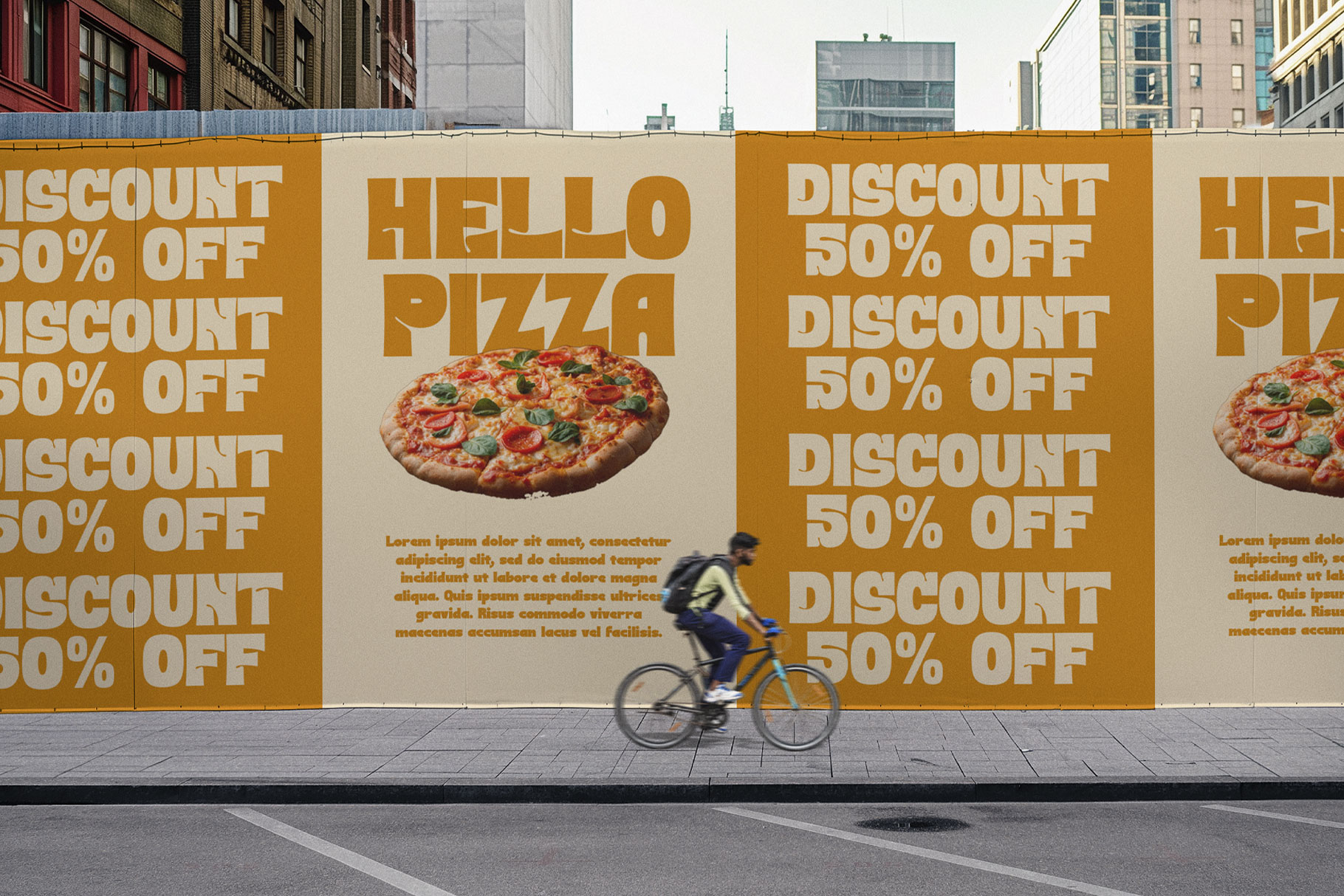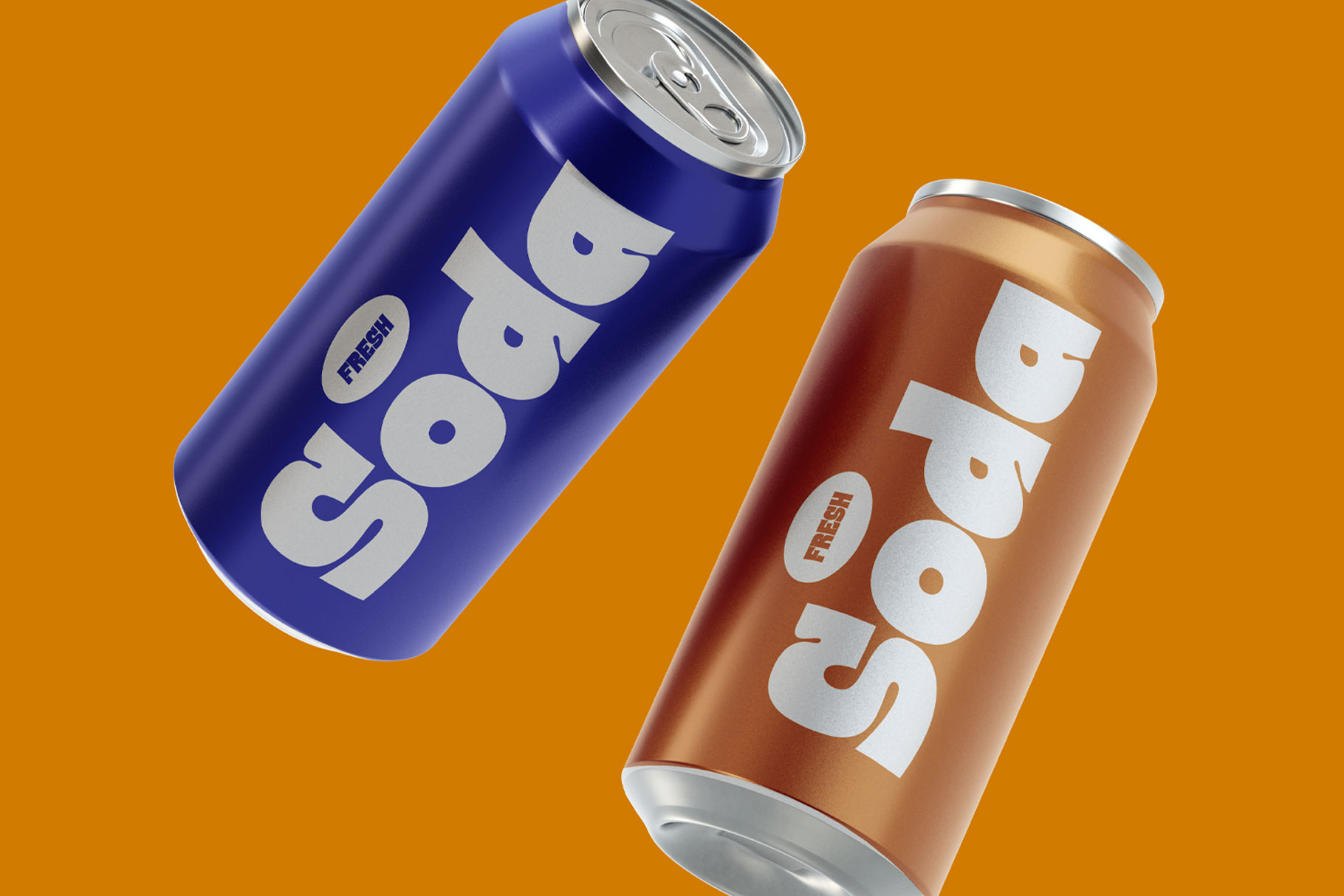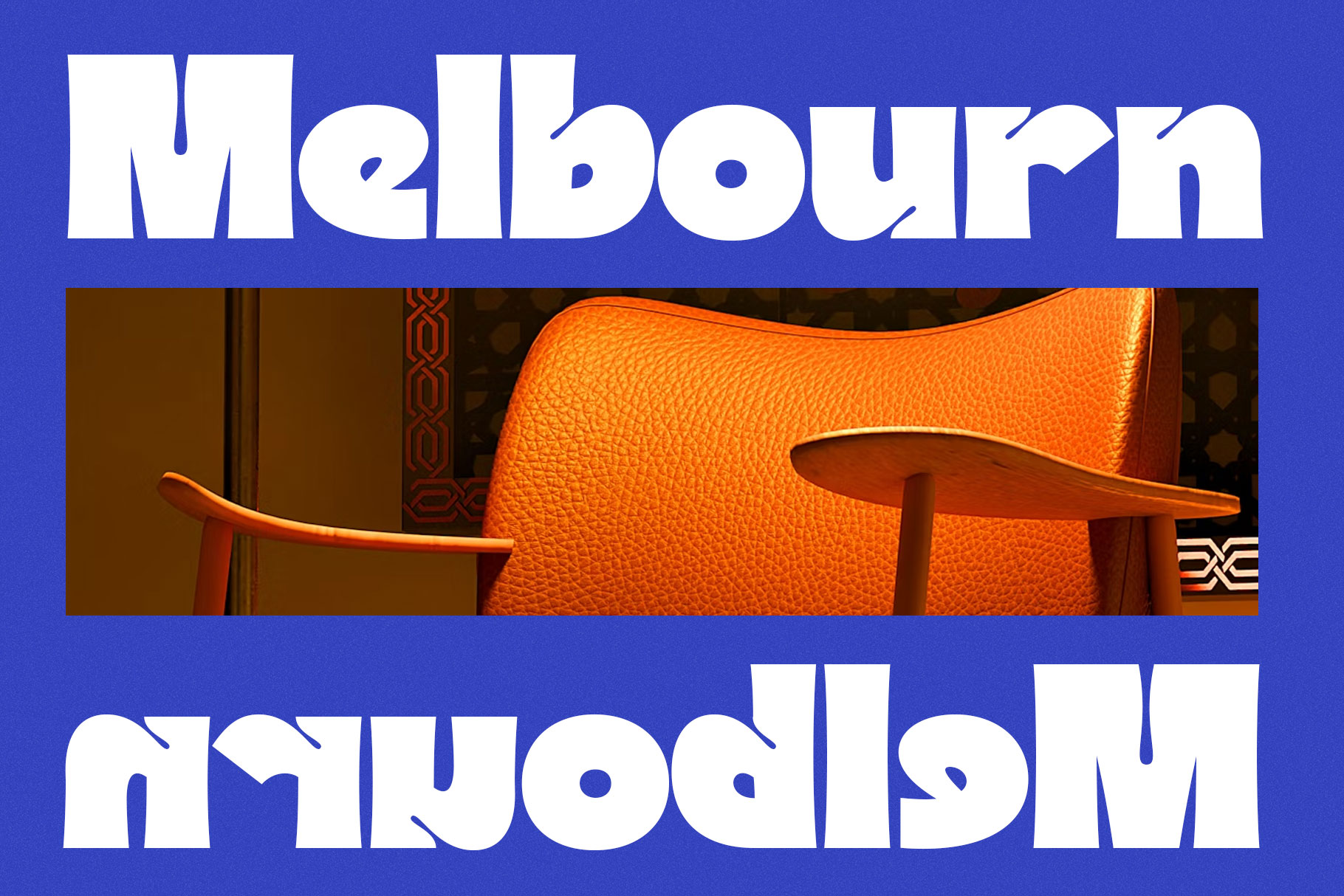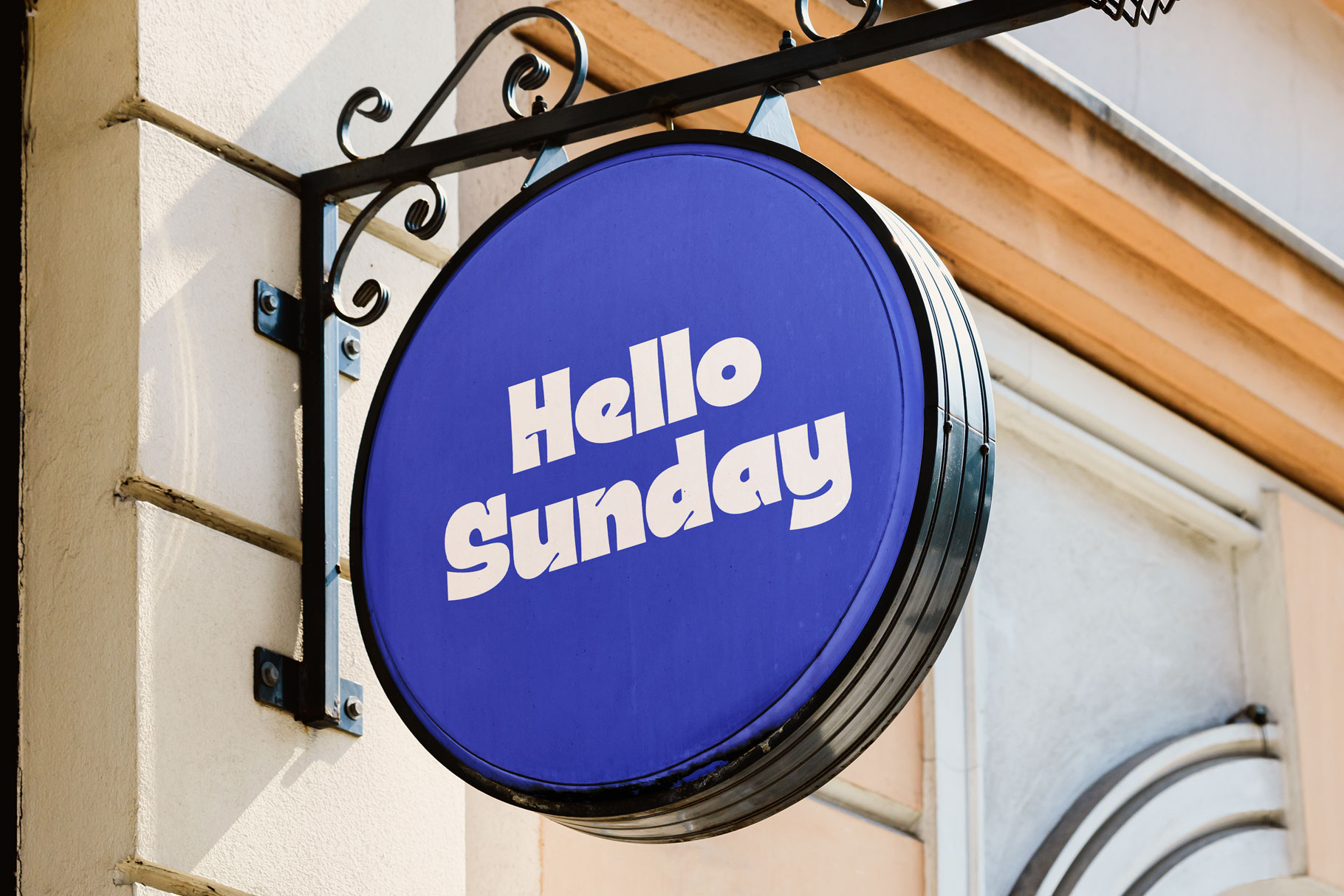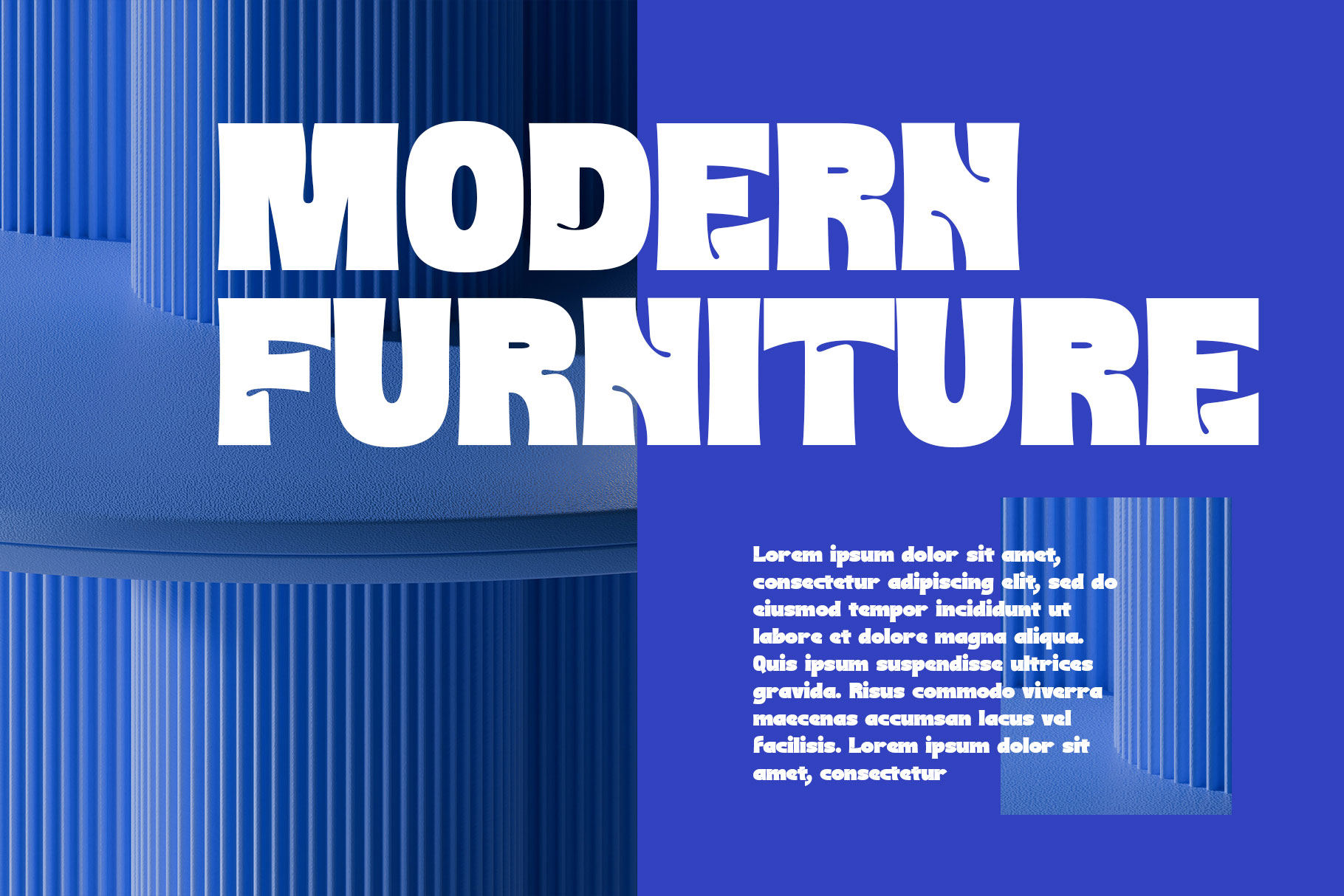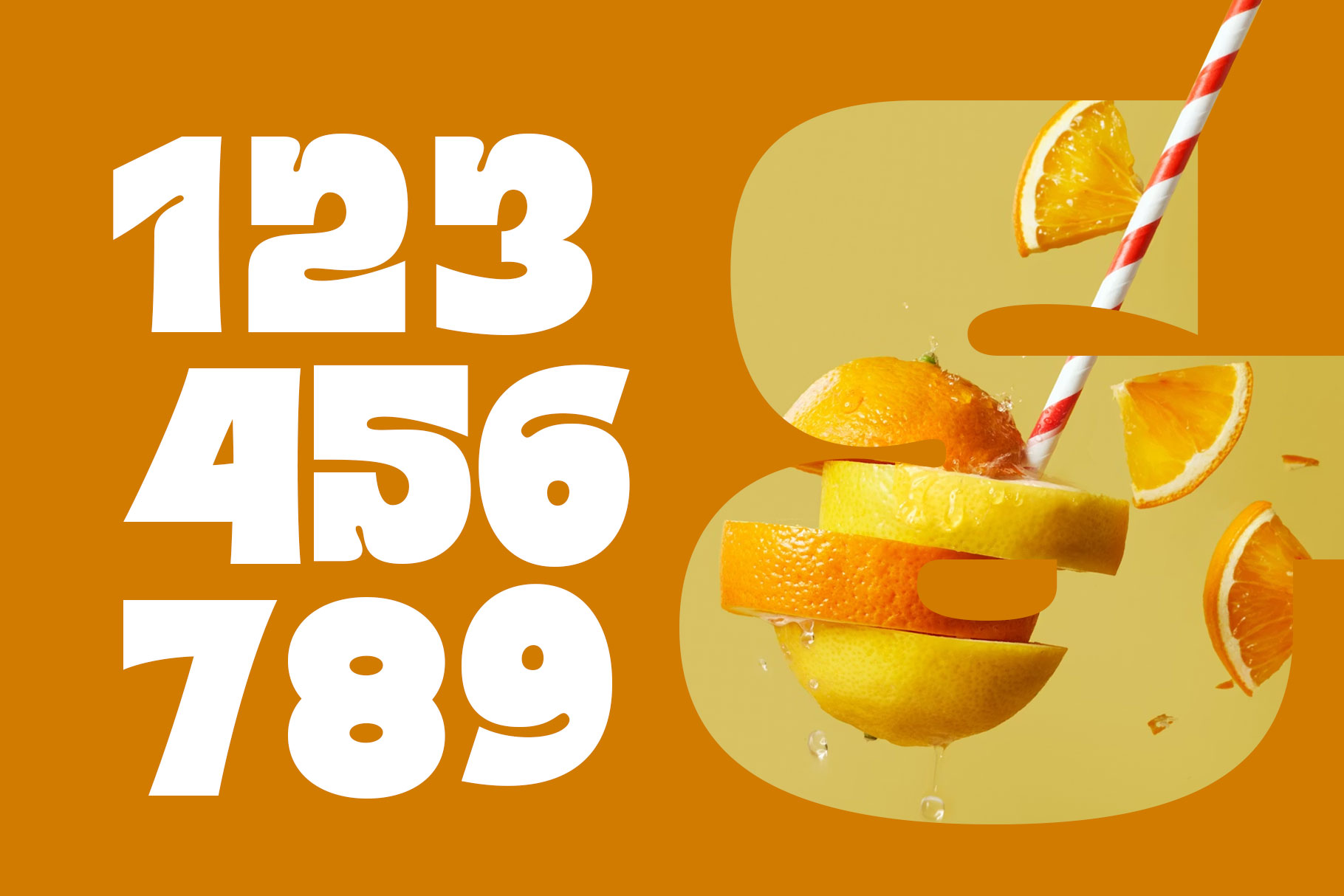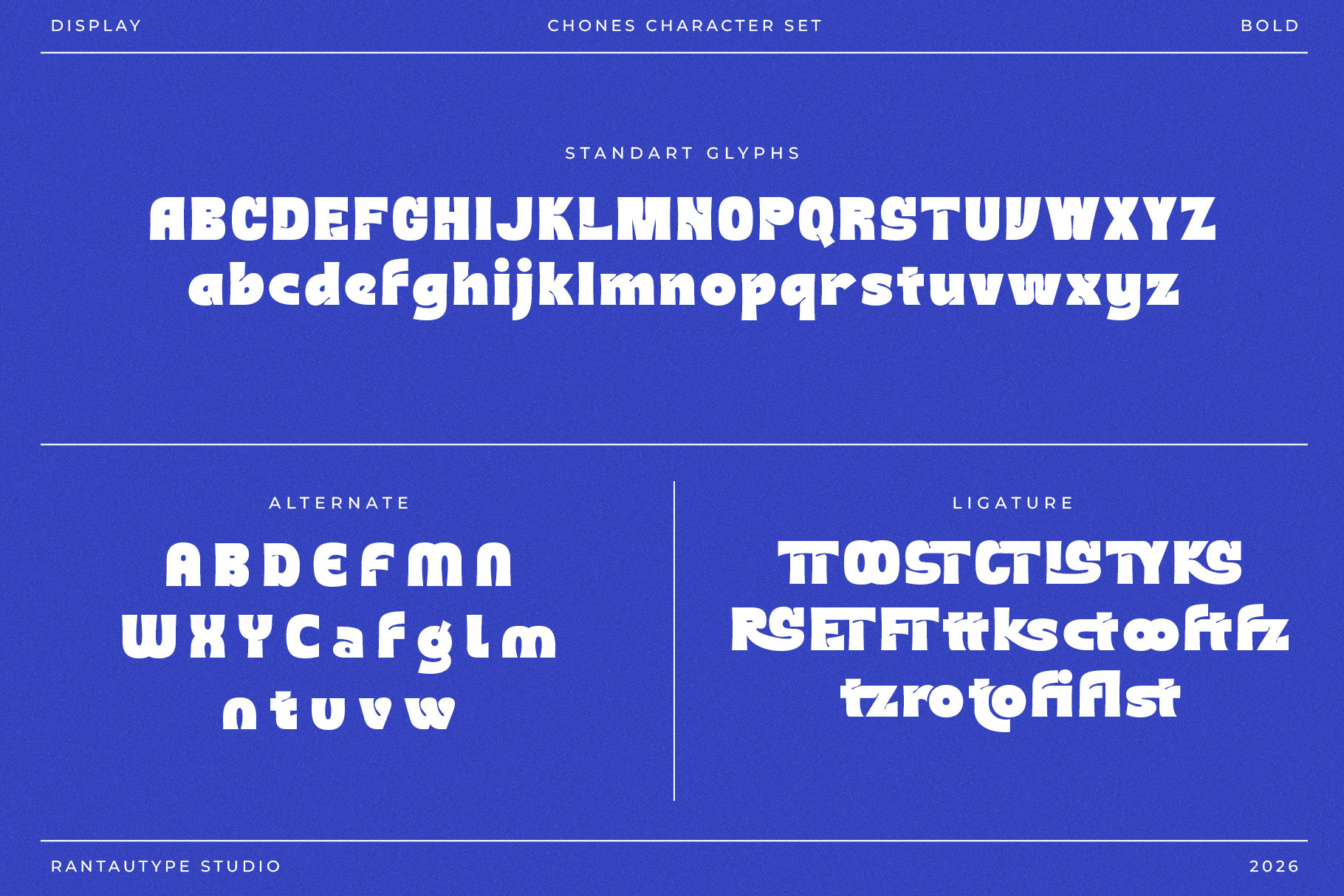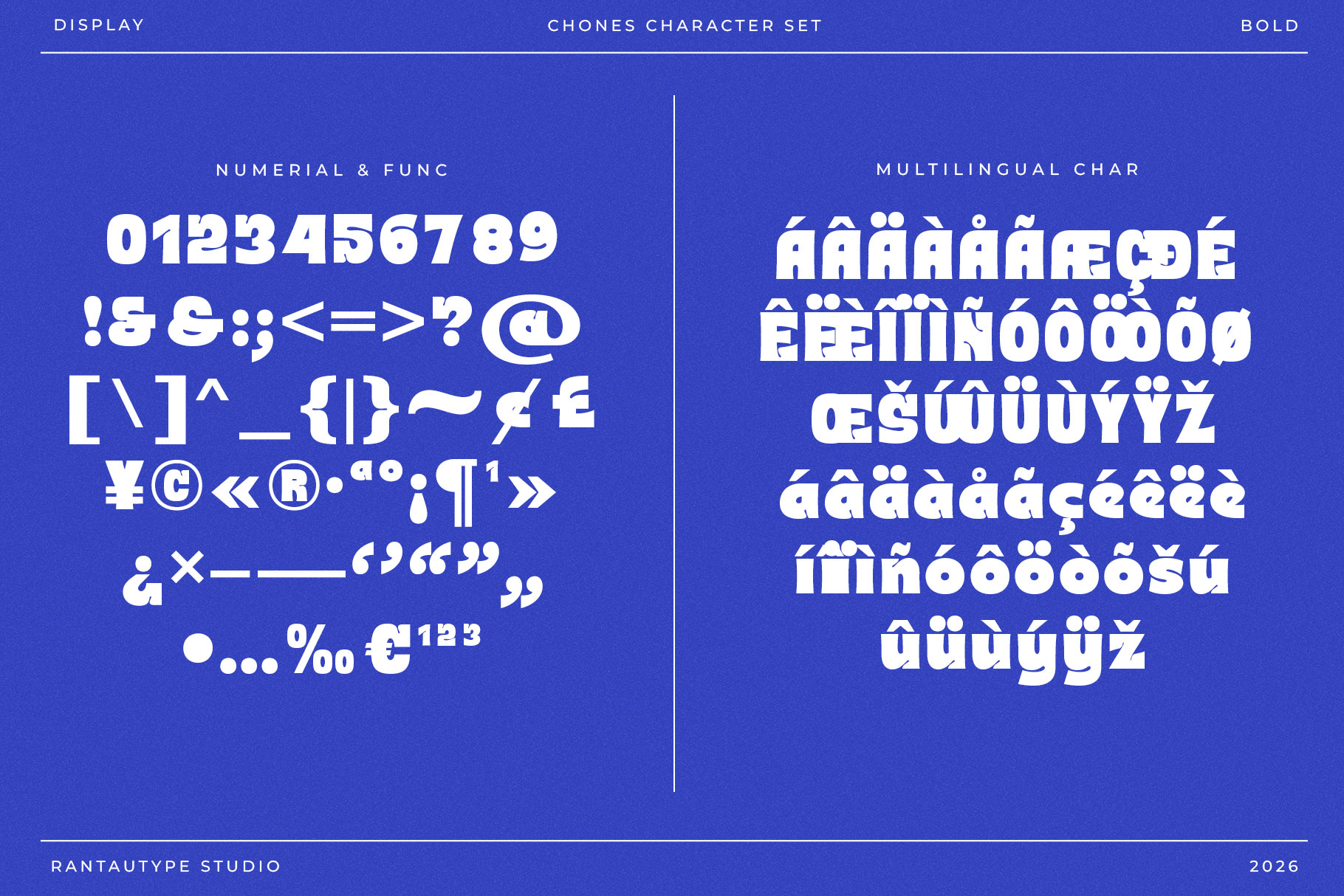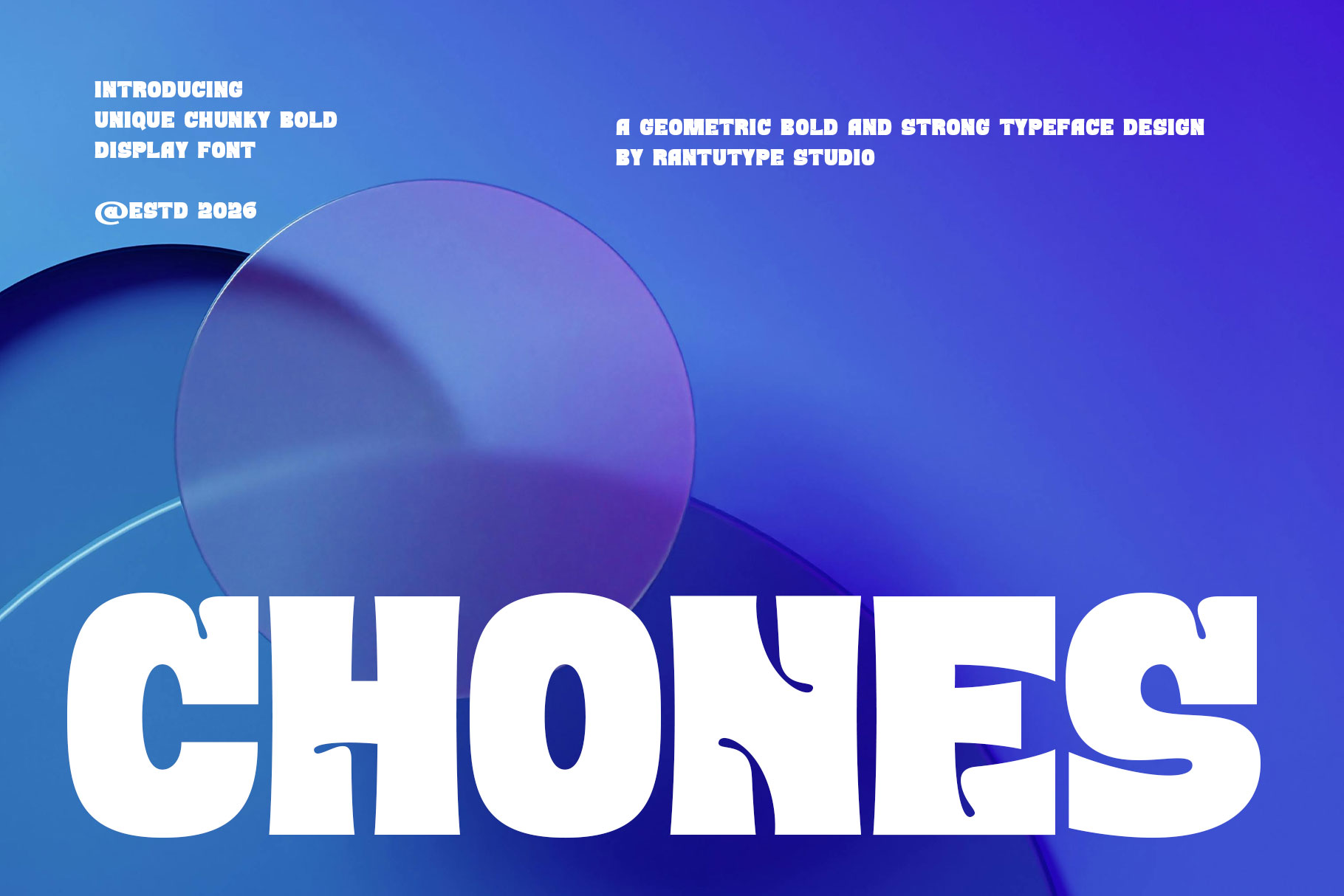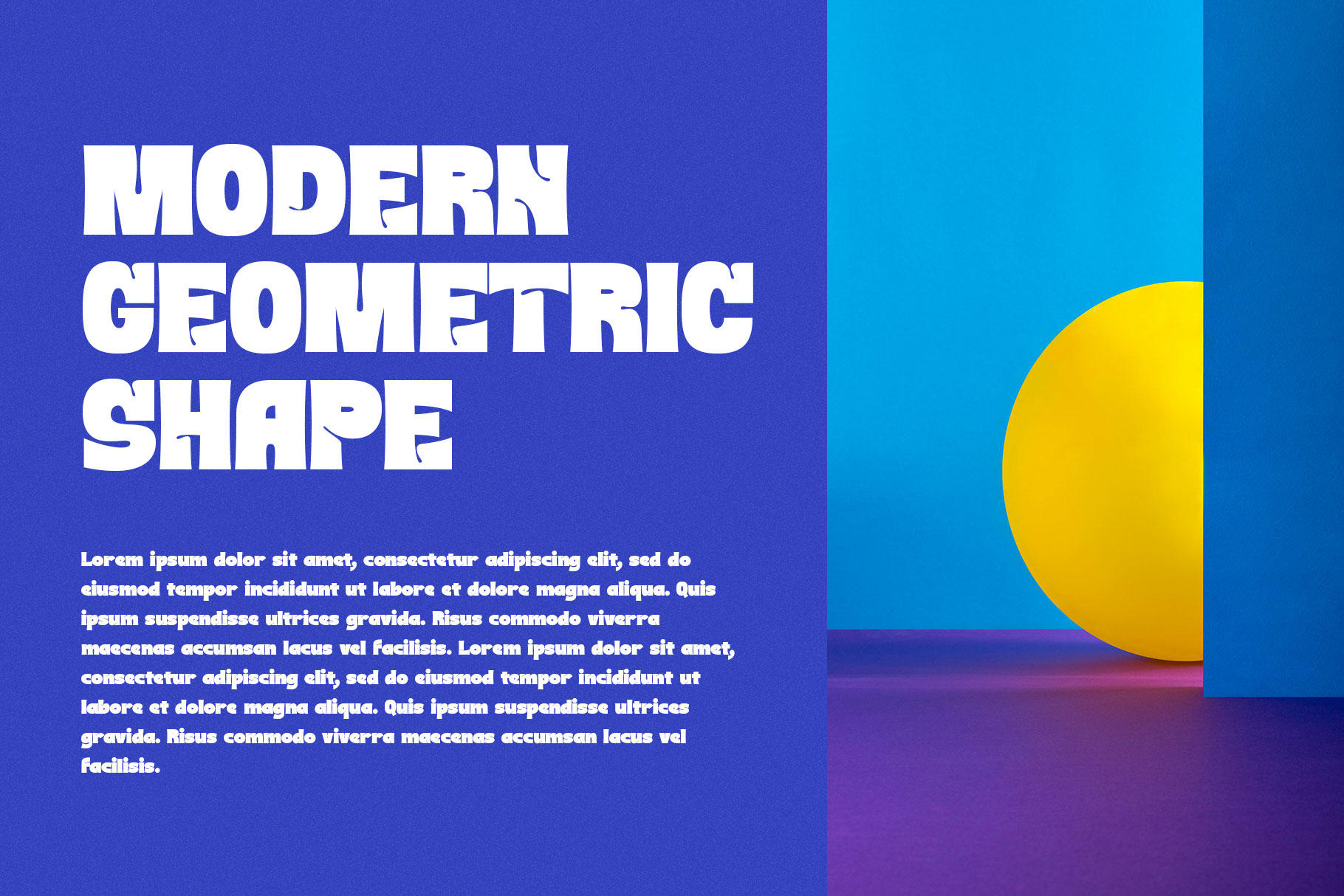
Chones Bold Chunky Typeface
Chones is powerful typographic style defined by its thick strokes, solid structure, and confident presence. Chones is a perfectly choice for any creative endeavor, creating, modern, lifestyle design such as logotype, title, cover, branding, invitations, wedding designs, display and magazine, social media posts, advertisements, printed quotes, product packaging, corporate brand, product designs, labels, photography, watermarks, special events and any other project with modern touch.